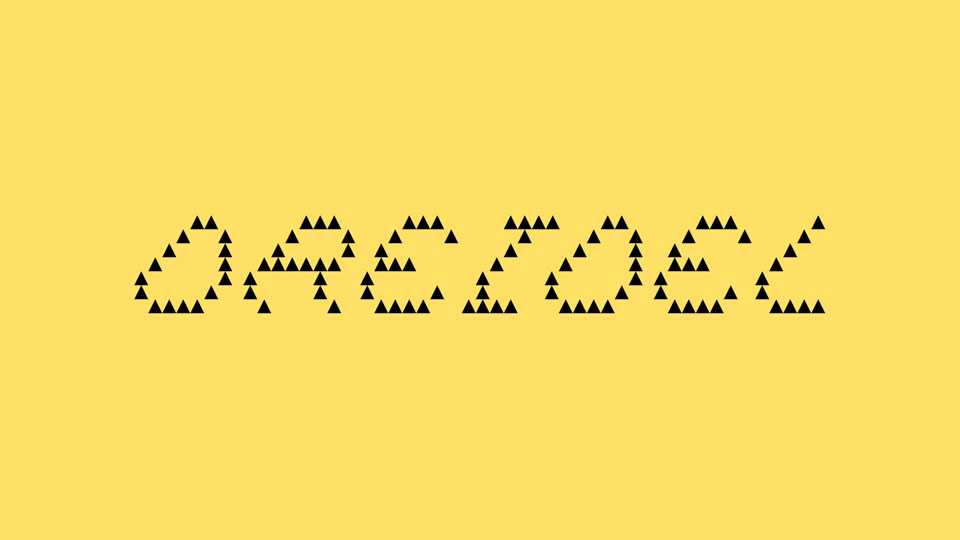
TMT Dreidel Font › Fontesk
Download TMT Dreidel font, a decorative variable typeface with sharp, angular pixels that bring a modern, digital flair to any typography. It features letterforms composed of crisp, angular pixels, creating a striking and edgy aesthetic.